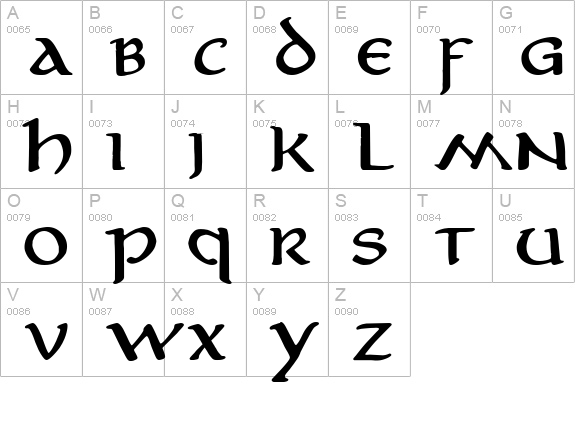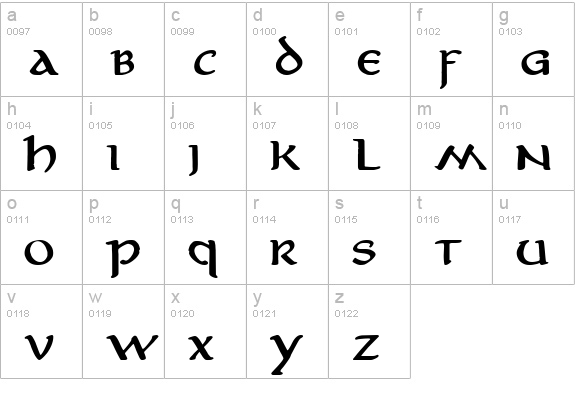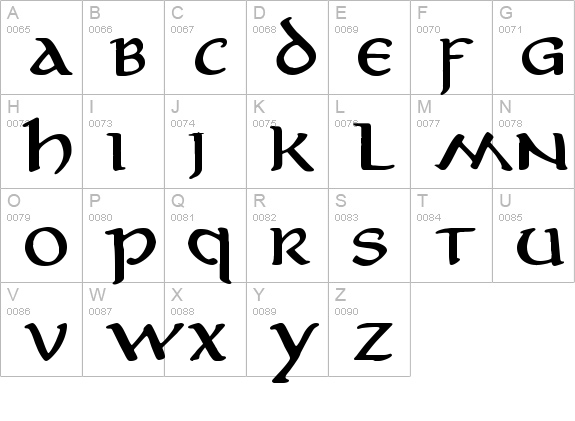
Aniron Bold is a strong, high-contrast variant in the Aniron typeface family \xE2\x80\x94 well suited to headlines, attention-grabbing titles, and strong calls-to-action.
Introducing Aniron Bold, a stunning and powerful font that will bring a touch of elegance and sophistication to your designs. With its bold and commanding presence, Aniron Bold is the perfect choice for headlines, titles, logos, and any other design project that requires a strong and impactful visual impact. This font features clean and sharp lines, making it highly legible even at smaller sizes. Its bold weight adds an extra level of emphasis and makes it stand out from the crowd. Whether you're designing a magazine layout, a website, or a branding project, Aniron Bold will make your text jump off the page and grab the attention of your audience. What makes Aniron Bold even more appealing is that it is available for free download at FontsMarket.com. This means that you can easily access and use this incredible font in your projects without breaking the bank. FontsMarket.com is a trusted source for high-quality fonts, and they offer a wide range of options to suit every design need. So go ahead and give your designs the bold and captivating look they deserve with Aniron Bold. Download it for free at FontsMarket.com and take your typography game to the next level.